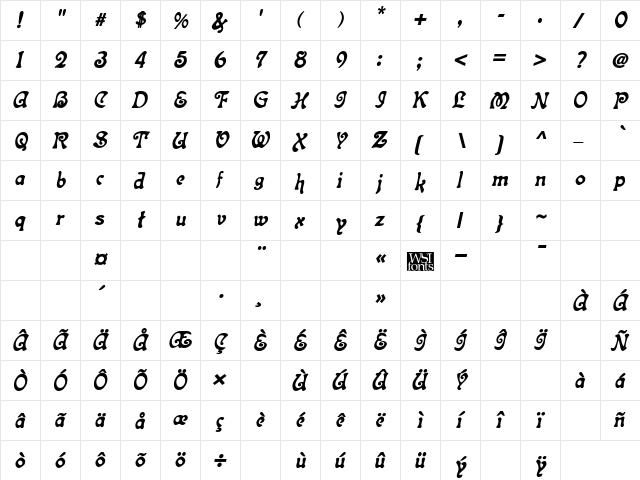
Topeka Bold Italic
Design Context for Topeka Typeface
Topeka is a composed and adaptable typeface that performs quietly and consistently across a wide range of design contexts. Its italic angle brings a sense of urgency and motion to the letterforms. Its bold stroke weight gives it real presence on the page.